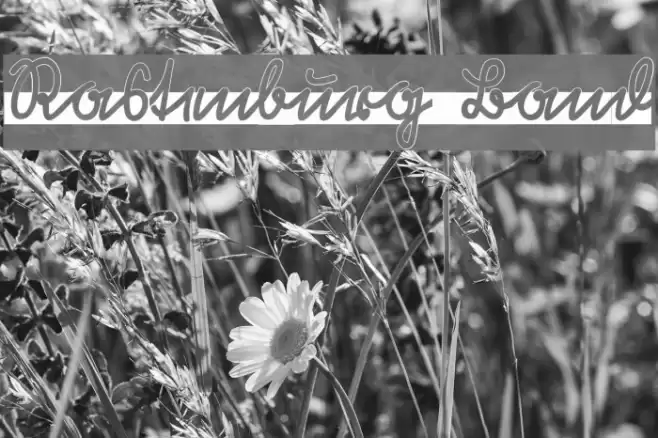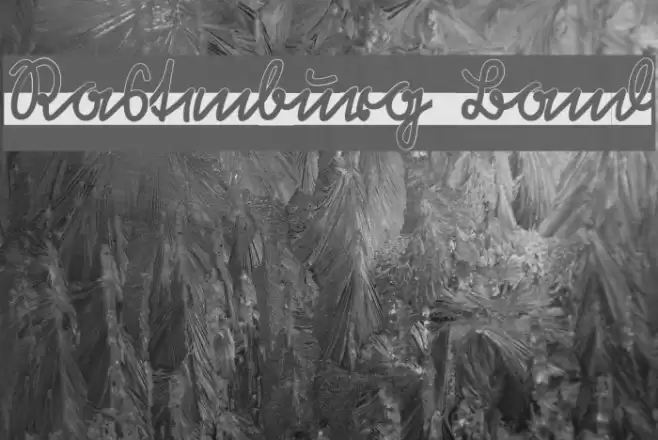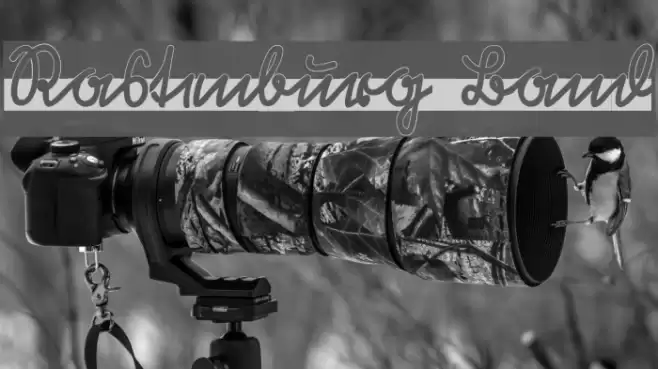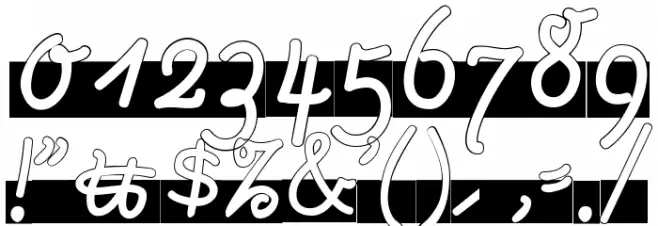
Rastenburg Band Font
Rastenburg Band Description
This font features a playful and dynamic script style, characterized by its flowing, interconnected letters that mimic the fluidity of handwriting. The strokes are smooth and rounded, giving it an approachable and friendly appearance. The uppercase letters are bold and prominent, while the lowercase letters maintain a consistent rhythm, enhancing readability. The numerals and special characters are crafted with the same attention to detail, ensuring a cohesive look across all elements. This font is ideal for projects that require a personal touch, such as invitations, greeting cards, or branding materials that aim to convey warmth and creativity.
A playful script font with flowing, interconnected letters and a friendly appearance from Uncategorized fonts.
- Proposed Projects: Ideal for invitations, greeting cards, personal branding, and creative projects.
- Use Case: Logos, Headlines, Decorative text